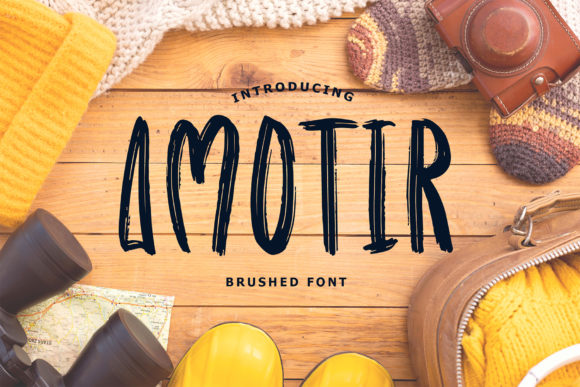
The Amotir Font: A Brush with Creativity
I still remember the project that led me to discover the Amotir font. I was working on a custom letterhead design for a small business, and I was struggling to find the perfect font that would capture their playful yet professional vibe. That’s when I stumbled upon Amotir, a brushed display font that instantly caught my eye. Its unique, hand-crafted look was exactly what I needed to bring the design to life.
So, what makes Amotir so special? Here are a few things I love about this font:
• ✨ Unique, hand-brushed look that’s perfect for creative projects
• ✅ Highly legible, even at larger font sizes
• 💡 Supports a wide range of languages and OpenType features
• 🎨 Great for use in titles, headings, and letterheads
Of course, no font is perfect, and Amotir does have a few quirks:
• 🤔 May not be the best choice for body text or smaller font sizes
• ⚠️ Limited availability of certain glyphs and special characters
The Story Behind Amotir
Amotir was designed with the creative hobbyist in mind. Its unique, hand-brushed look is perfect for adding a personal touch to any project. According to the designer, Amotir was inspired by the world of art and craft, where imperfections and uniqueness are celebrated.
What is Amotir font? Amotir is a brushed display font with a unique, hand-crafted look.
What is Amotir good for? Amotir is great for use in titles, headings, letterheads, and other creative projects.
Is Amotir available in multiple languages? Yes, Amotir supports a wide range of languages and OpenType features.